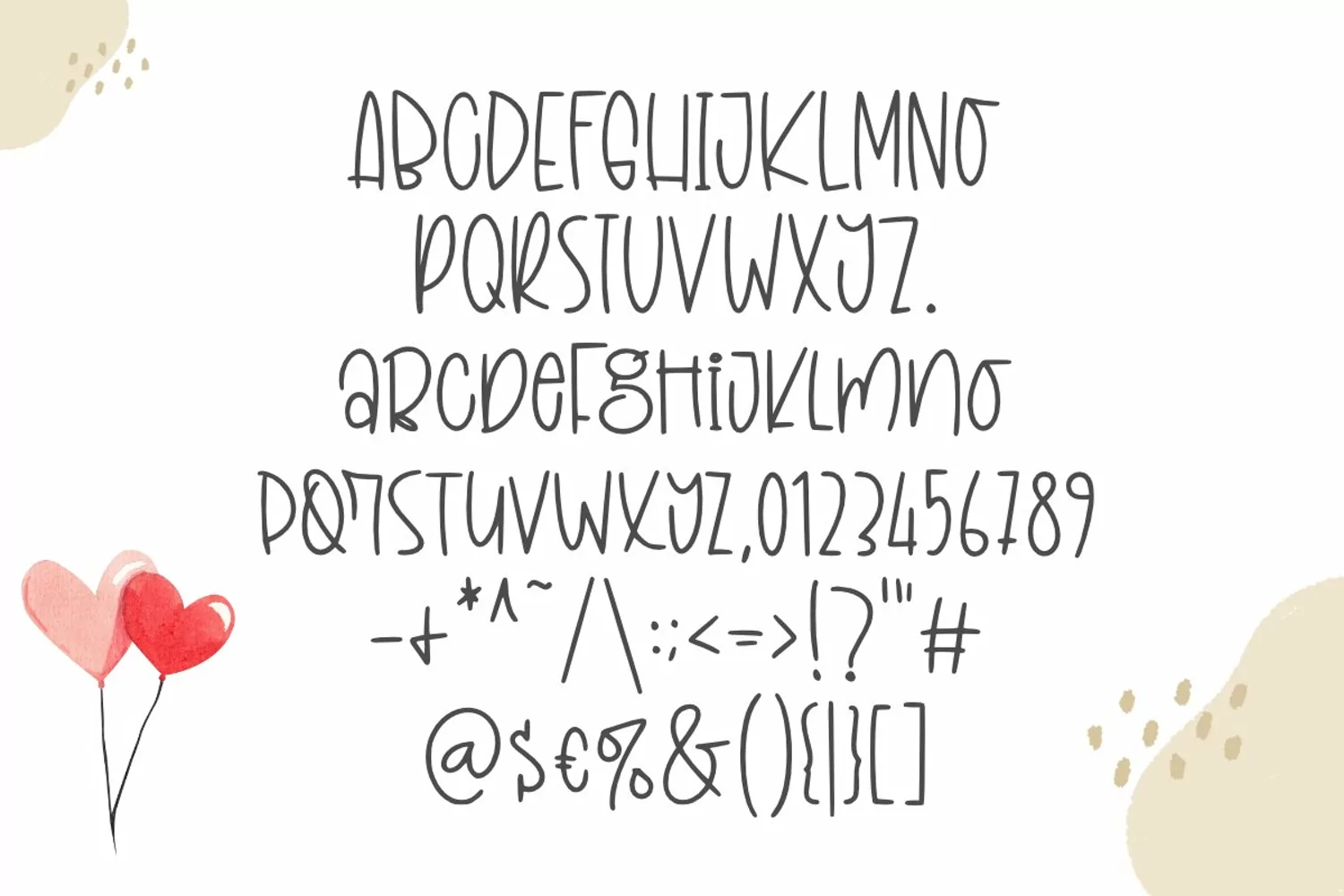
Introducing " Spring Farmhouse "
Spring Farmhouse Is a Fun and Quirky font
You Can Mix And Match for Your Awesome Project
This fonts is ideal for crafting, branding and decorate your any project. This fonts are perfect for wedding invitation or your blog. Also with their help, you can create a logo or beautiful frame for your home. Or just use for your business, book covers, stationery, marketing, magazines and more.